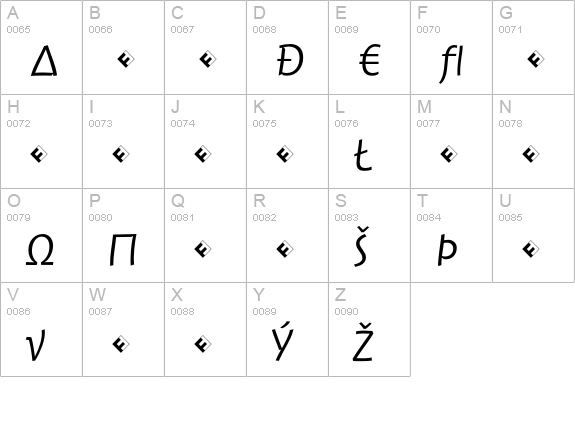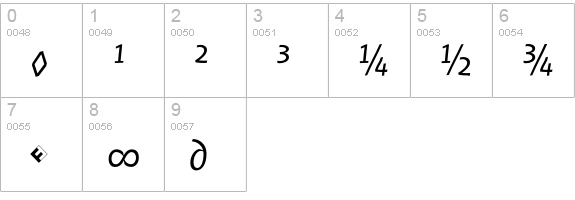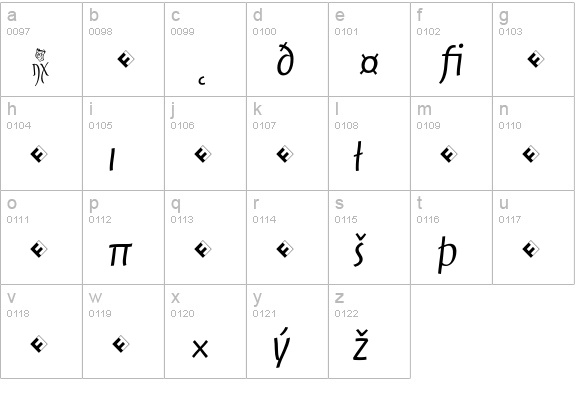
JambonoTF-LightExpert font is a beautifully designed typeface that exudes elegance and sophistication. With its delicate and slender letterforms, this font adds a touch of refinement to any design project. The clean lines and subtle curves of JambonoTF-LightExpert font make it perfect for creating stunning logos, eye-catching headlines, and stylish packaging designs. Its versatility allows it to be used in a wide range of applications, from advertising and branding to editorial design and web graphics. This font is not only visually appealing, but it is also incredibly legible, ensuring that your message is easily understood by your audience. The balanced spacing and carefully crafted details make JambonoTF-LightExpert font a pleasure to read, whether it's on a printed page or a digital screen. What makes JambonoTF-LightExpert font even more enticing is that it is available for free. Yes, you read that right! This high-quality typeface can be freely downloaded at FontsMarket.com, allowing you to enhance your designs without any cost. So why wait? Download JambonoTF-LightExpert font today and give your projects a touch of elegance and sophistication. Whether you're a professional designer or a passionate hobbyist, this font is sure to impress with its beauty and versatility.